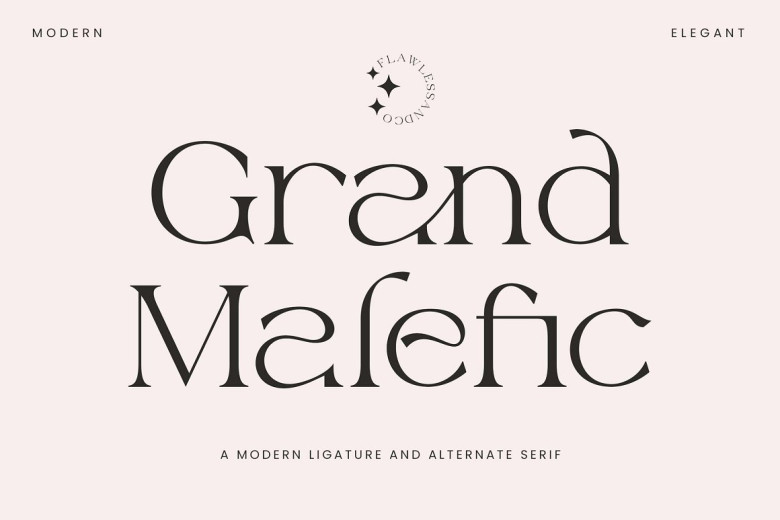
Grand Malefic Font
Grand Malefic is a stunning serif with connected letters. Perfect for branding, t-shirts, posters, photography quotes and more, modern Ligature and Alternate Serif will add flair and vibrancy to any display creation like wedding invitation cards.
Grand Malefic Serif Font